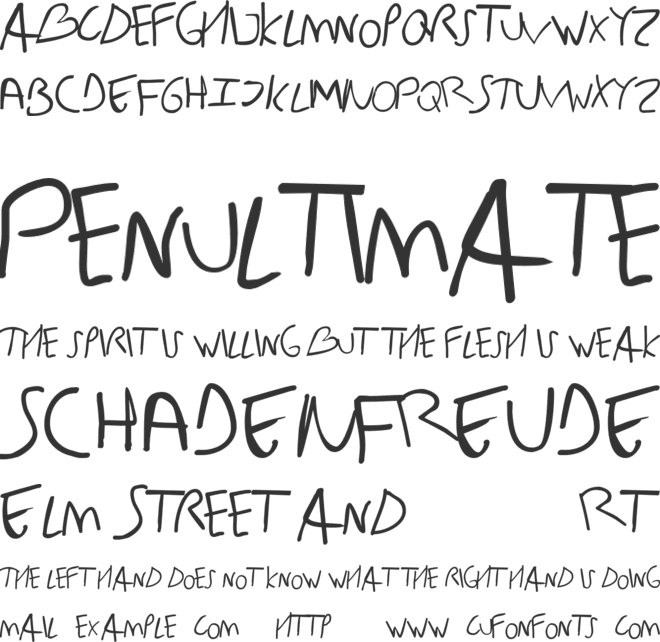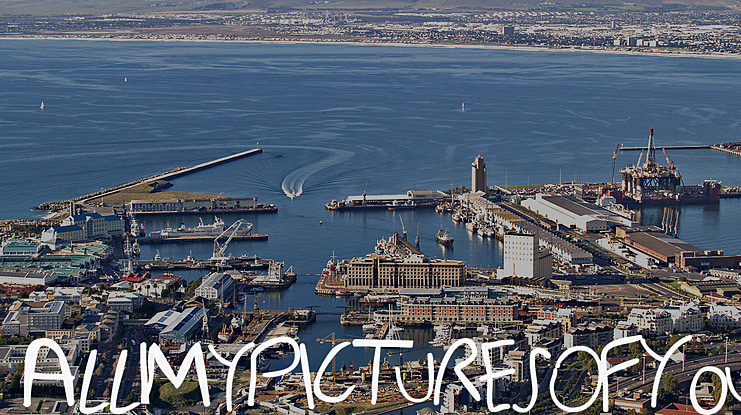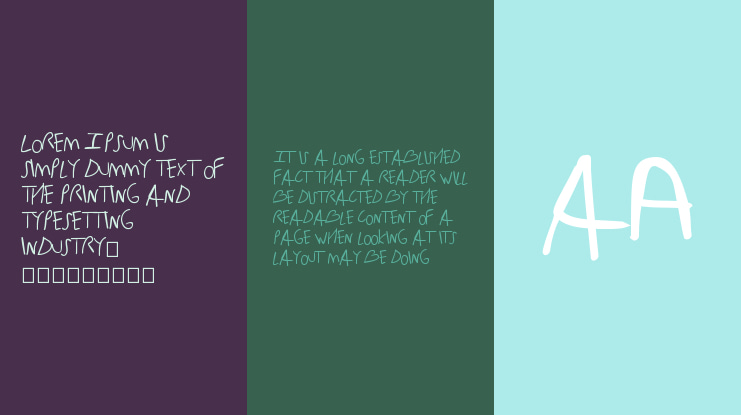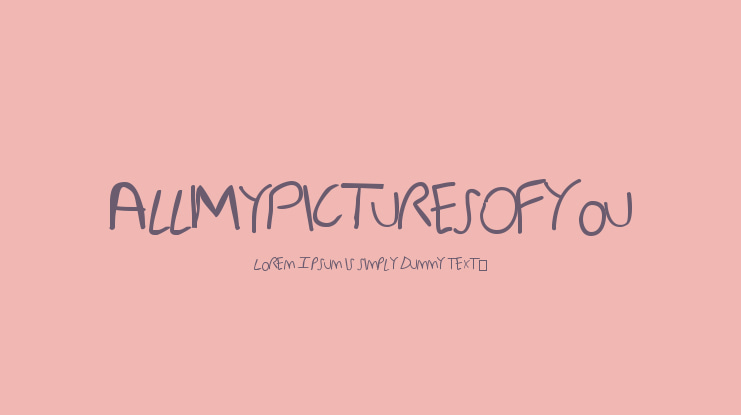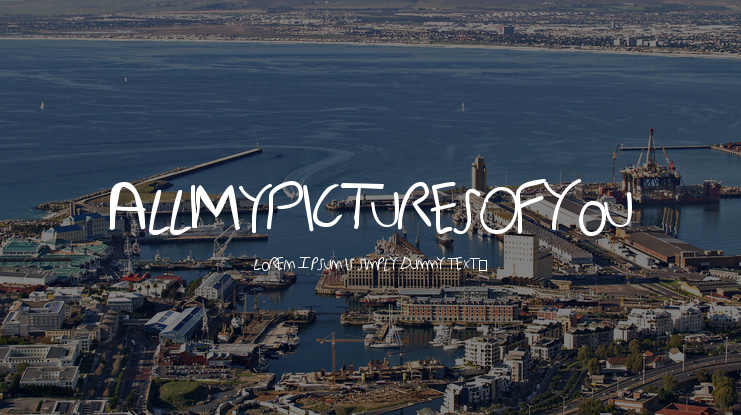
AllMyPicturesOfYou Font
Hello Everyone. Here this, all capital ( small letters and big letters ) two set of typeset were created from the Musician Robert Smith's handwriting. From late 80's era. I was not aiming 100 percent vertex spline correct, identical letters. As a fan I felt being close to his letters were enough. Like covering one of his songs. Well long live Robert Smith and long live the Cure.